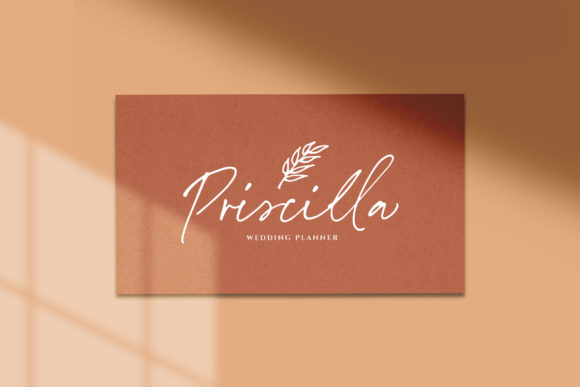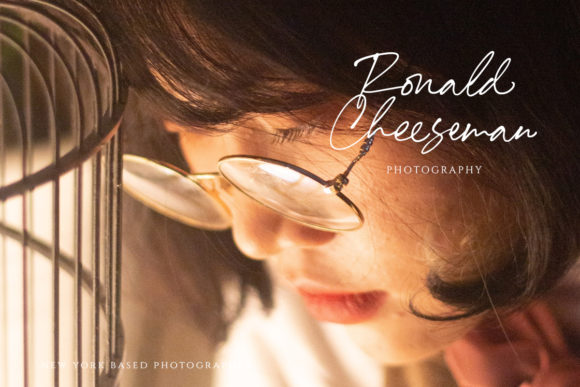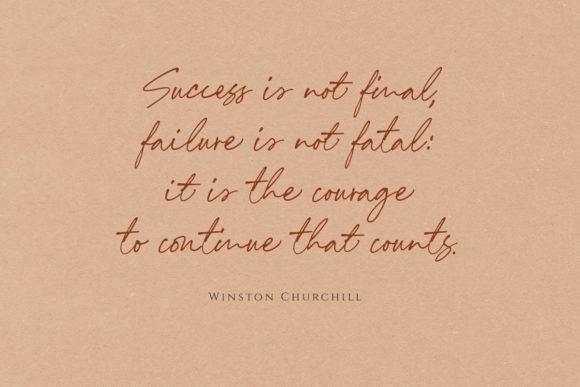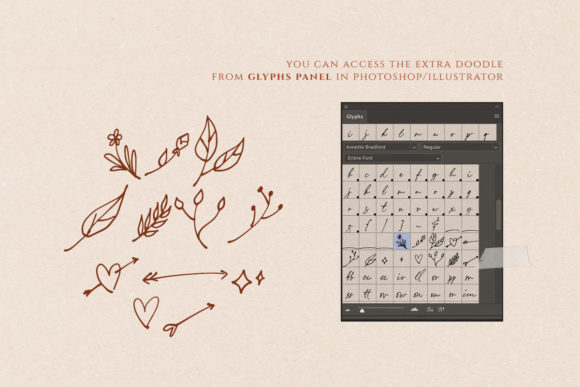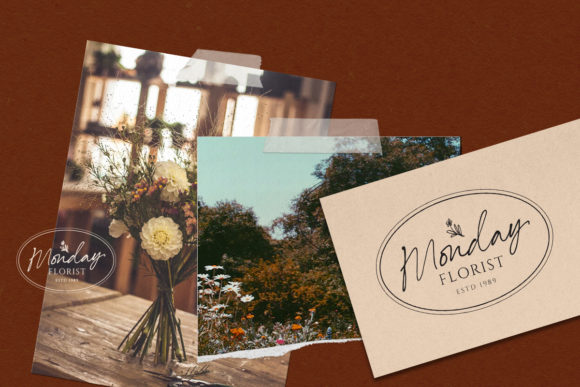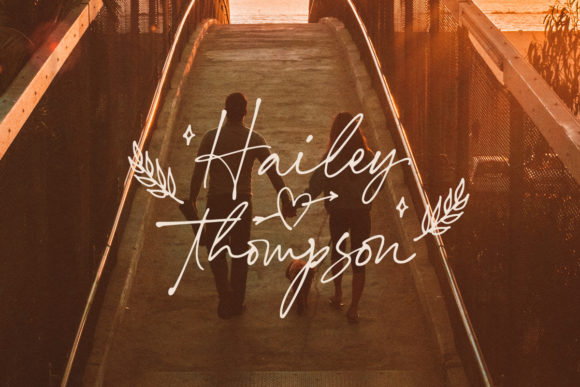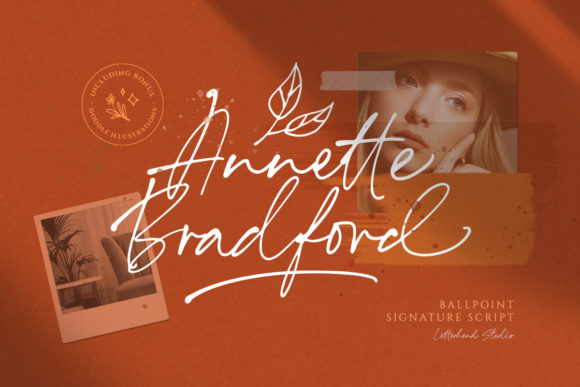
Discover the Elegance of Annette Bradford Font: A Delicate Handwritten Script
In the world of typography, few fonts capture the essence of elegance and sophistication as beautifully as the Annette Bradford Font. This delicate and lovely handwritten font has been making waves among designers and crafters alike, and for good reason. With its unique blend of classic charm and modern versatility, Annette Bradford is the perfect choice for a wide range of creative projects.
What Makes Annette Bradford Font So Special?
Annette Bradford Font is a PUA (Private Use Area) encoded font, which means that accessing all of its glyphs and swashes is incredibly easy. This feature is particularly useful for designers who want to add a personal touch to their work without spending hours navigating complex font menus. Whether you’re creating wedding invitations, social media posts, or stationary art, Annette Bradford’s intuitive design makes it simple to achieve professional-looking results.
The Characteristics of Annette Bradford Font
So, what sets Annette Bradford apart from other handwritten fonts on the market? Here are just a few of its standout features:
- Varying Baseline: Annette Bradford’s unique varying baseline gives it a delightfully organic feel, reminiscent of handwritten scripts.
- Smooth Lines: The font’s smooth lines and curves create a sense of fluidity and movement, adding to its overall elegance.
- Gorgeous Glyphs: With a range of beautiful glyphs to choose from, designers can add intricate details and flourishes to their work.
- Stunning Alternates: Annette Bradford also features stunning alternate characters, allowing designers to mix and match different styles to create a truly unique look.
Endless Creative Possibilities with Annette Bradford Font
One of the things that makes Annette Bradford so versatile is its incredible range of applications. Here are just a few ideas to get you started:
- Wedding Invitations: Create beautiful, one-of-a-kind wedding invitations that set the tone for a stylish and sophisticated celebration.
- Stationary Art: Use Annette Bradford to create gorgeous stationary art, including greeting cards, thank you cards, and more.
- Social Media Posts: Add a touch of elegance to your social media posts with Annette Bradford’s delicate script.
- Branding and Packaging: Use Annette Bradford to create a cohesive brand identity that exudes sophistication and refinement.
Why Designers and Crafters Love Annette Bradford Font
So, why have designers and crafters fallen in love with Annette Bradford Font? Here are just a few reasons:
- Ease of Use: Annette Bradford’s PUA encoding makes it easy to access all of its glyphs and swashes, even for designers who are new to working with handwritten fonts.
- Versatility: With its range of applications and uses, Annette Bradford is a font that can be used again and again, making it a valuable addition to any design library.
- Elegance: Annette Bradford’s delicate script and classic charm make it the perfect choice for designers who want to add a touch of sophistication to their work.
In conclusion, Annette Bradford Font is a truly special font that offers a unique blend of elegance, versatility, and ease of use. Whether you’re a designer, crafter, or simply someone who appreciates beautiful typography, Annette Bradford is definitely worth checking out. With its range of applications and uses, it’s sure to become a go-to font in your design library.